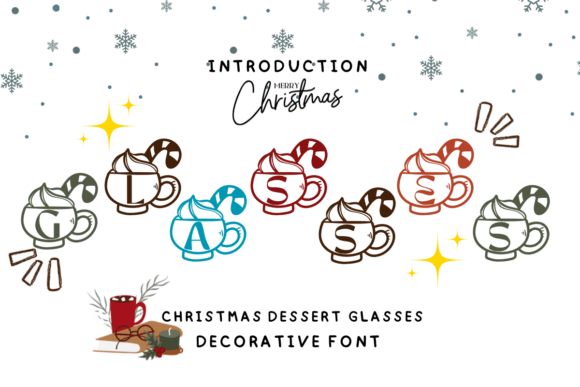
Deck the Halls with Holiday Cheer: Introducing Christmas Dessert Glasses Font
It’s the most wonderful time of the year, and what better way to capture the magic of Christmas than with a font that embodies the spirit of the season? As you sit by the fireplace, surrounded by twinkling lights and the warmth of loved ones, the idea strikes you – to create something truly special, something that embodies the essence of Christmas. And that’s when you stumble upon Christmas Dessert Glasses Font, a decorative font that’s as festive as it is versatile.
This charming font is more than just a pretty face – it’s a tool for designers to create something truly unique and special. Whether you’re looking to add a touch of holiday cheer to your social media posts, design a festive banner, or create a one-of-a-kind mug, Christmas Dessert Glasses Font is the perfect companion for your creative endeavors.
Christmas Dessert Glasses Font Key Features
- Font Family: A festive and elegant font designed specifically for Christmas dessert glasses, ideal for holiday menus and recipes.
- Unique Characteristics: Features intricate designs and ornaments reminiscent of traditional Christmas dessert glasses, adding a touch of elegance and festivity to any design.
Designer Review: Christmas Dessert Glasses Font
I recently had the chance to work with the Christmas Dessert Glasses Font, and I must say, it’s a mixed bag. ✨ One thing that really stands out is the font’s festive and playful vibe, making it perfect for holiday-themed designs. The bold lines and rounded edges give it a fun, whimsical feel that’s sure to bring some cheer to any project.
Another strength of the font is its versatility. ✨ It comes in a range of weights and styles, making it easy to adapt to different design needs. From headings to body text, the font can be used to create a cohesive and visually appealing look.
- ⚠️ The font may be too kitschy for some designers, and its playfulness might come across as overly cheesy in certain contexts.
- ⚠️ The range of characters and symbols available is somewhat limited, which might make it difficult to use in more complex designs.
- ⚠️ The font’s readability can be a concern in smaller text sizes, making it harder to use for body text in smaller designs.
Overall, I think the Christmas Dessert Glasses Font is a great choice for holiday-themed designs, but it may not be the best fit for every project. With its playful vibe and versatility, it’s definitely worth considering for your next festive design.
Use the Christmas Dessert Glasses Font to create festive and inviting designs for holiday-themed projects, such as:
– Christmas party invitations and decorations
– Holiday menus and recipe cards
– Gift tags and gift boxes